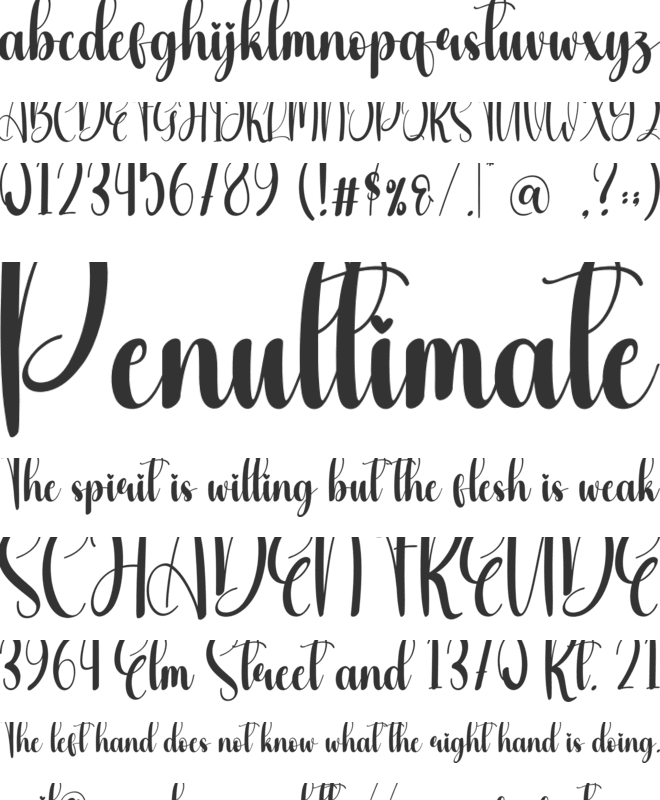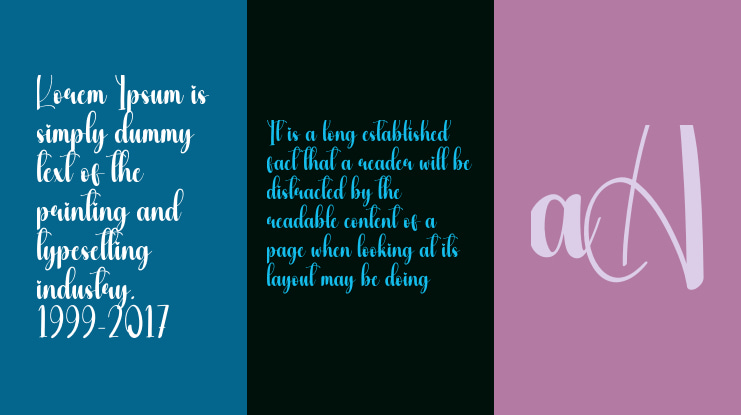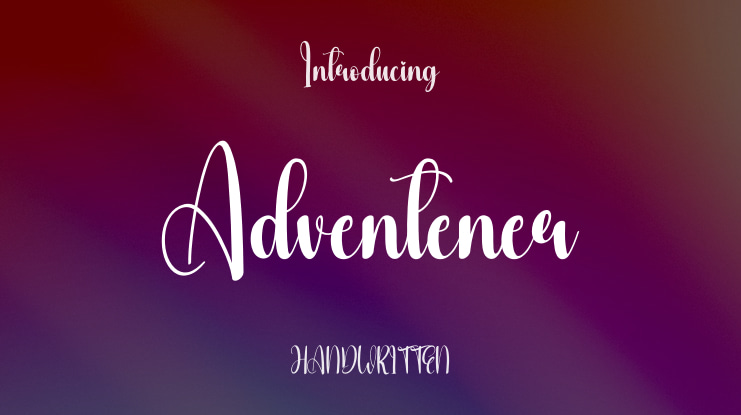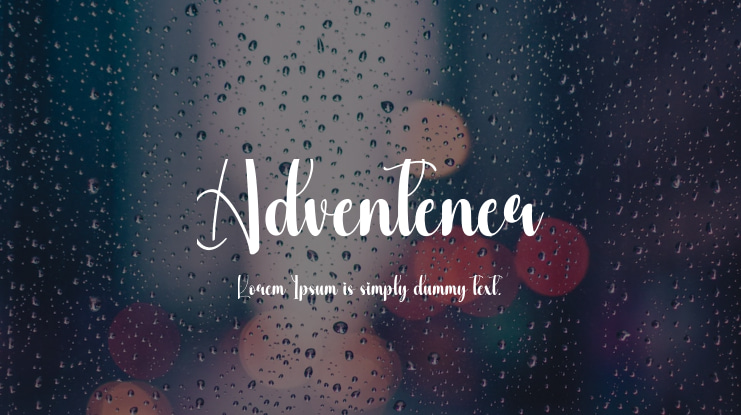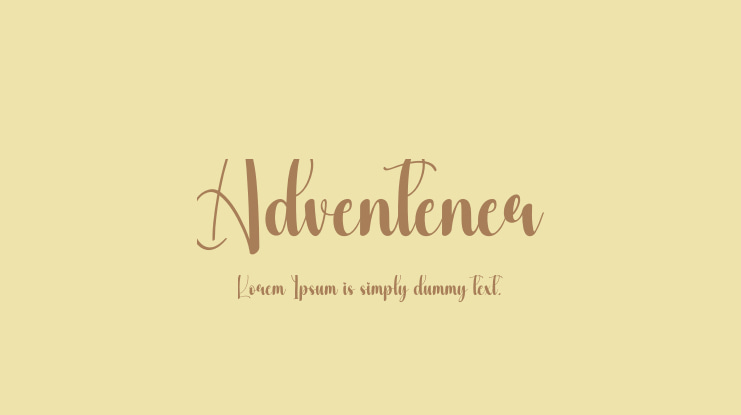
Adventener Font
Our latest style letter fonts are ideal for wall displays, wedding invitations, social media post logos, advertisements, product packaging, designs, labels, photography, watermarks, stationery, or any project that demands elegant handwriting.
Adventener font preview